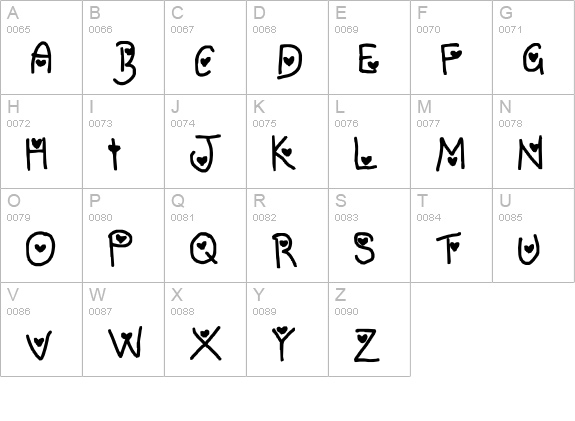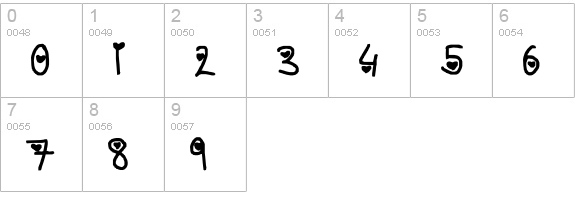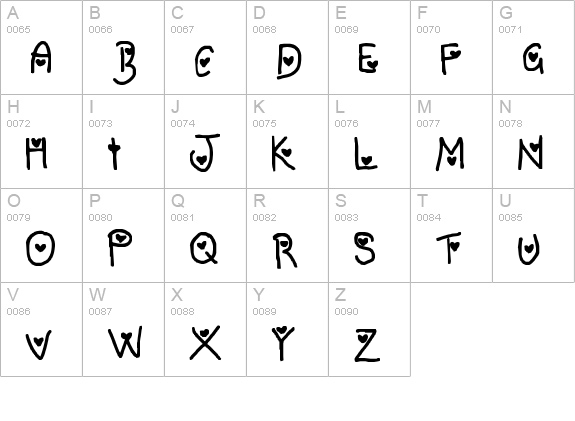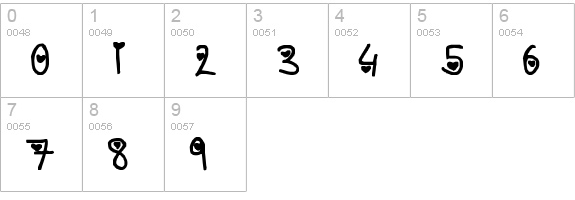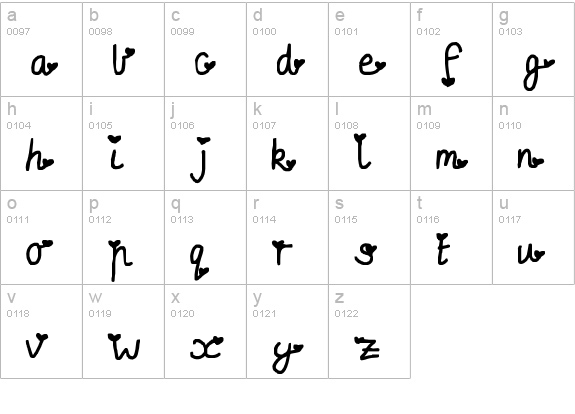
Introducing the captivating and enchanting "To Love You" font! This exquisite typeface is designed to infuse your designs with an irresistible charm and an aura of elegance. With its delicate curves and graceful lines, it effortlessly captures the essence of love and romance. "To Love You" is not just a font; it is a visual representation of pure affection and tenderness. Its intricate details and artistic flourishes make each letter a work of art, creating a mesmerizing effect that will captivate your audience. Whether you are creating wedding invitations, love letters, or heartfelt quotes, this font will add a touch of magic to your designs. What's even more incredible is that "To Love You" font is available to download for free at FontsMarket.com. Yes, you read that right! This stunning font can be yours without spending a single penny. We understand the importance of spreading love and joy, and that's why we want to offer this font freely to anyone who wishes to add a touch of romance to their designs. Downloading "To Love You" font from FontsMarket.com is a breeze. With just a few clicks, you can have this beautiful typeface at your disposal, ready to bring your creative visions to life. Whether you are a professional designer or a passionate hobbyist, this font will become an invaluable tool in your artistic arsenal. So why wait? Embrace the power of love and download "To Love You" font from FontsMarket.com today. Let this enchanting typeface be a celebration of all things beautiful and affectionate. Spread love through your designs and let "To Love You" font be the catalyst that ignites emotions and touches hearts.